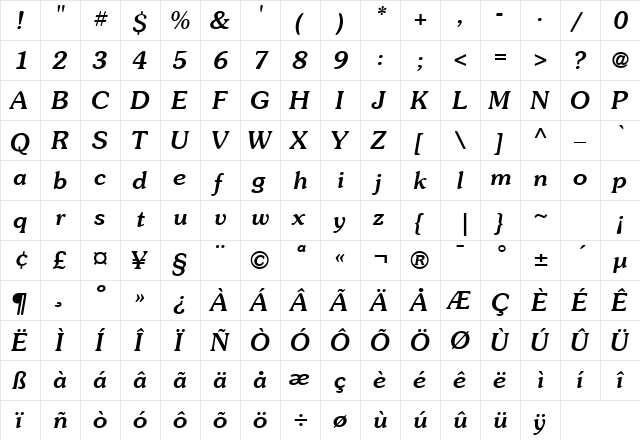
SueVermeer5 MedItalicSH
Design Context for SueVermeer5 Typeface
SueVermeer5 offers clean, dependable letterforms without strong stylistic allegiance, making it a practical choice for designers who need flexibility. Its italic angle brings a sense of urgency and motion to the letterforms.
Pro Tip: Use SueVermeer5 for emphasis, pull quotes, and subheadings where its slanted energy can add rhythm to the layout.